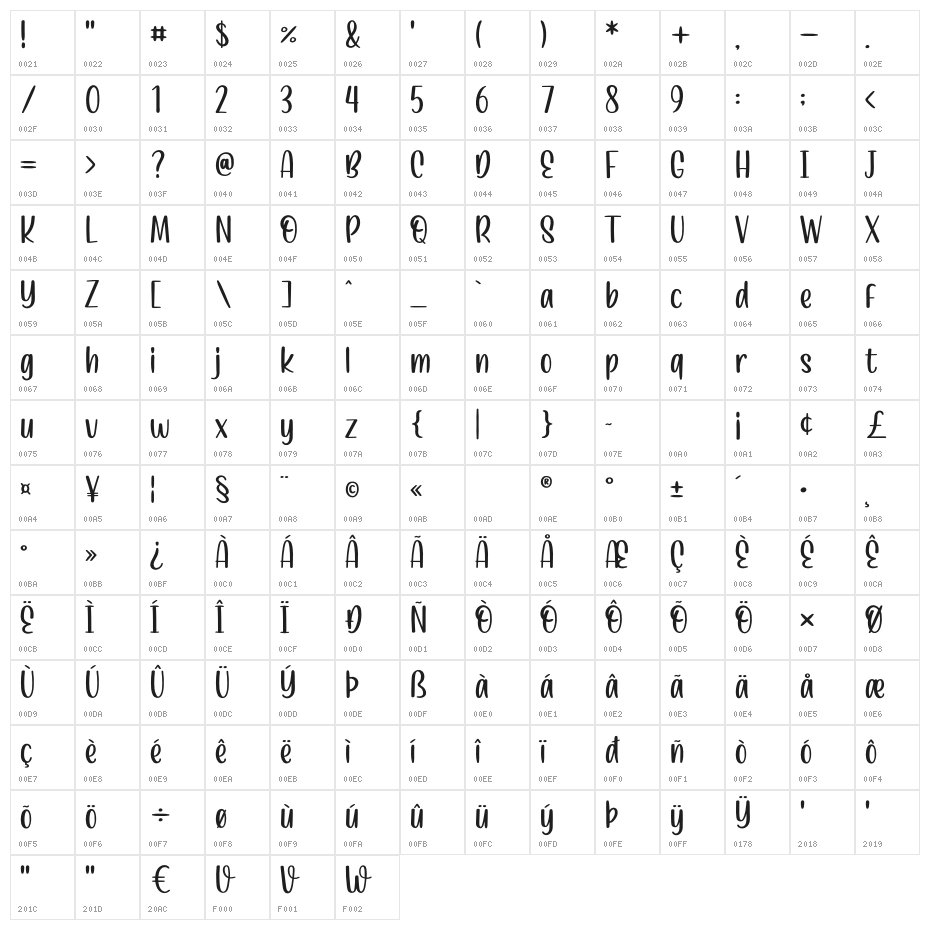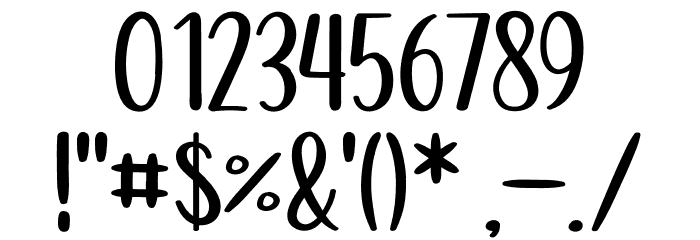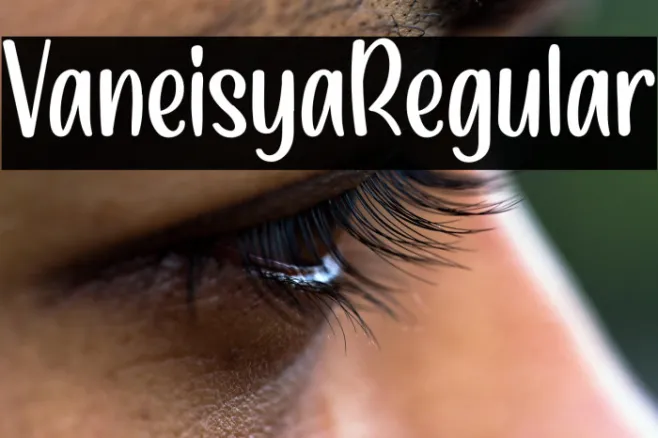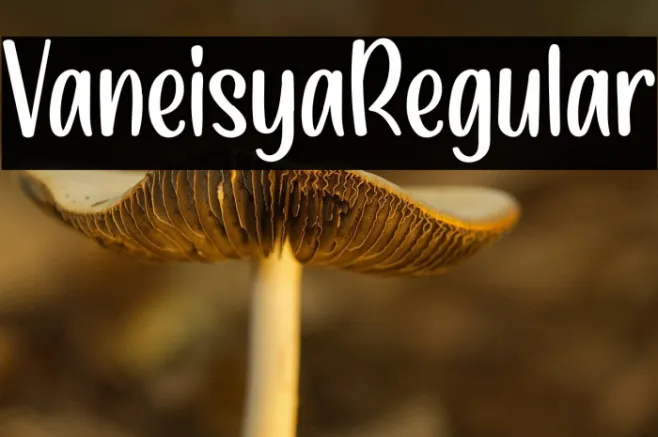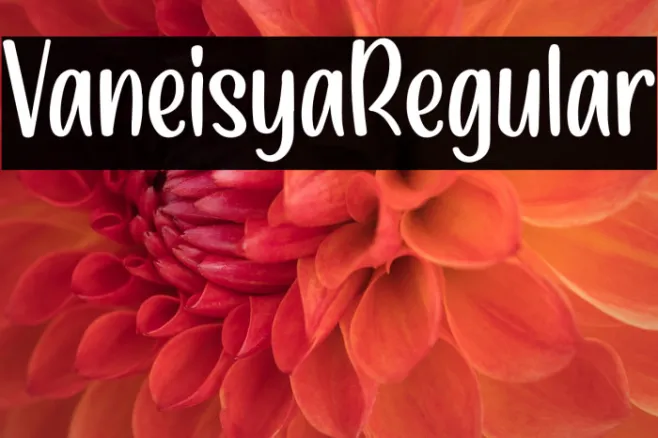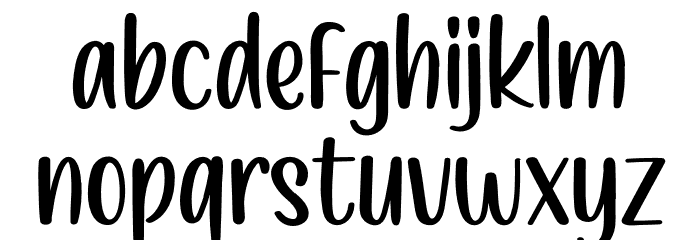
VaneisyaRegular Font
VaneisyaRegular Description
This font features a playful and casual handwritten style with a smooth flow and rounded edges. The uppercase letters are bold and slightly condensed, giving a sense of energy and movement. The lowercase letters maintain a consistent style, with some characters like 'g' and 'y' having distinctive loops that add to the font's charm. Numbers are clear and easy to read, while special characters retain the same playful aesthetic. This font is perfect for projects that require a friendly and approachable look.
| Use Case | Logos, Headlines, Social Media |
| Proposed Projects | Ideal for greeting cards, playful branding, children's books, and social media graphics. |